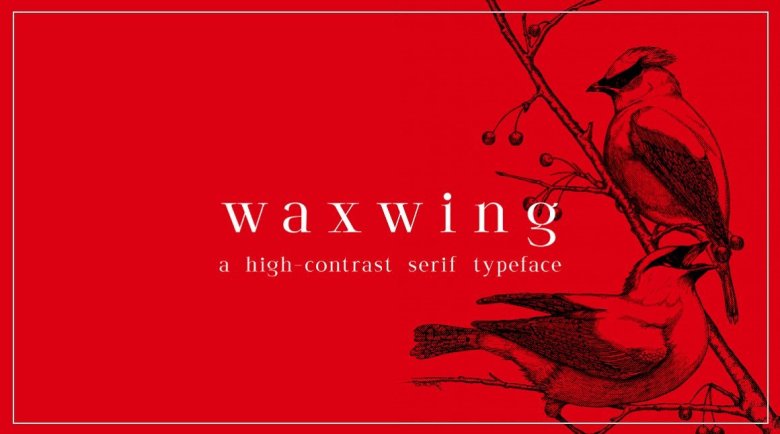
Waxwing Font
Waxwing Serif Font
Waxwing is a modern serif typeface that is elegant and feminine with contrasting thick and thin lines. This font is suitable to be applied to beauty magazine logos, beauty, and fashion product logos, writing for creator content, titles on layouts, and other luxurious things.